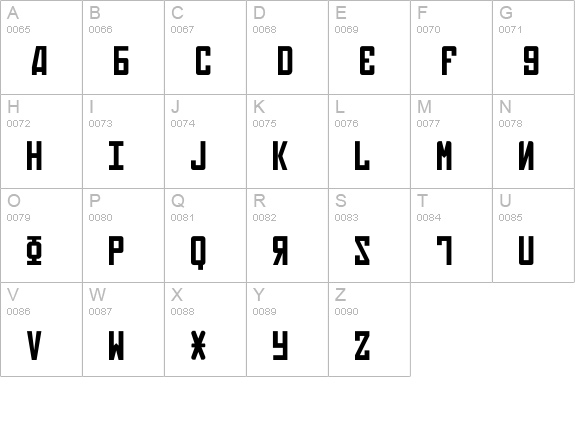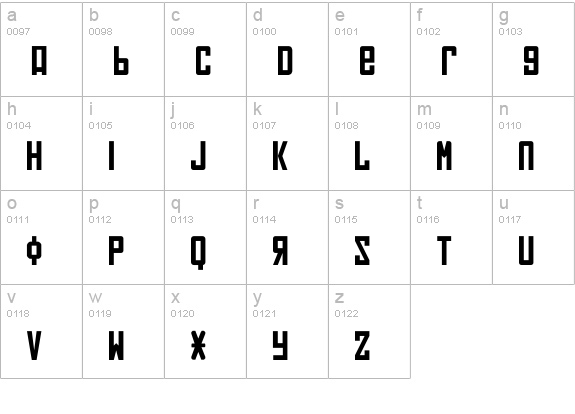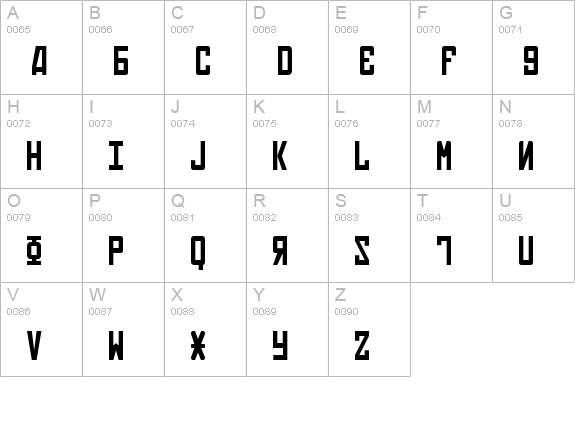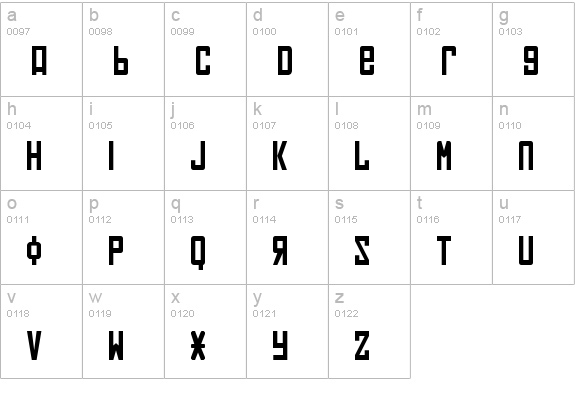
Introducing the captivating Soviet font, a timeless typeface that pays homage to the iconic design aesthetics of the Soviet era. This meticulously crafted font is perfect for those seeking a touch of vintage charm and a nod to the rich history of the Soviet Union. With its bold and commanding presence, Soviet font effortlessly captures the essence of strength, resilience, and unity. Featuring clean lines and carefully balanced proportions, Soviet font exudes a sense of modernity while remaining faithful to its nostalgic origins. Its distinct letterforms and sharp edges create a striking visual impact, making it an ideal choice for various design projects. But what truly sets Soviet font apart is its unique blend of classic style and contemporary versatility. Whether used for headlines, logos, posters, or any other creative endeavor, this font breathes life into any composition, instantly captivating the viewer's attention. And the best part? Soviet font is freely available to download at FontsMarket.com. This means you can effortlessly access and use this remarkable typeface in your projects without incurring any cost. FontsMarket.com provides a user-friendly platform where you can easily browse and download a wide range of fonts, including the captivating Soviet font, ensuring that your design visions can come to life with ease. So, if you're in search of a font that combines historical significance, visual impact, and cost-effective accessibility, look no further than Soviet font. Download it today from FontsMarket.com and embark on a creative journey that seamlessly blends the past and present in the most captivating way possible.